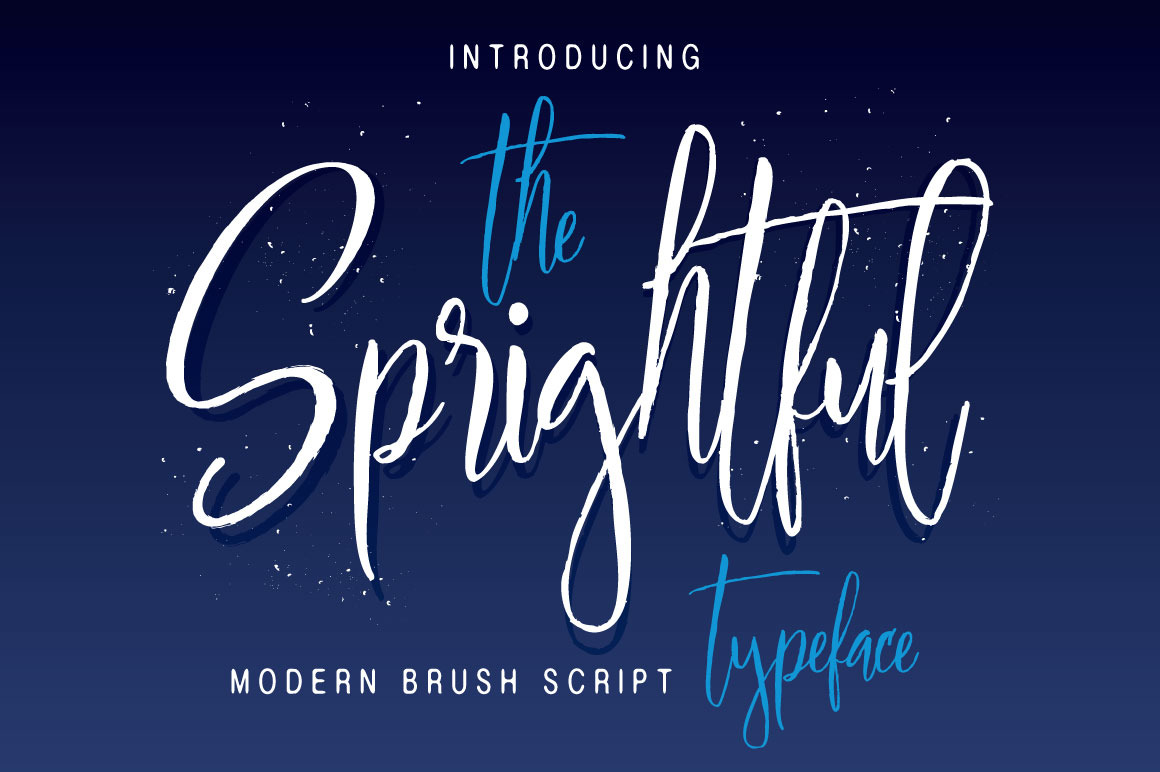
Sprightful Typeface
Sprightful Typeface is perfect for playful branding, cheerful children's products, vibrant toy packaging, fun birthday invitations, energetic entertainment venues, whimsical greeting cards, lively social media graphics, joyful event materials, spirited youth organizations, animated character designs, creative craft projects, and uplifting motivational content.
What makes Sprightful Typeface exciting is its infectious joy that radiates pure happiness and boundless energy through bouncy letterforms that seem to skip and dance with childlike wonder and enthusiasm. This delightful typeface embodies the essence of pure optimism and playful spirit, combining energetic movement with friendly approachability that instantly lifts moods and creates emotional connection with audiences seeking fun, positivity, and celebration. The font's spirited character and animated quality create immediate smiles while maintaining the readability essential for commercial applications. Its exuberant personality makes it perfect for brands that want to communicate joy, creativity, and the transformative power of laughter and playful experiences in bringing people together.
The Sprightful Typeface family includes regular and bold weights, featuring playful alternates, bouncy ligatures, and cheerful decorative elements. The character set incorporates fun symbols, spirited numerals, and expressive punctuation marks that enhance the font's joyful character and provide designers with comprehensive playful typography solutions for uplifting brand expressions.
Whether you're creating joyful brand identities, designing playful marketing materials, or developing cheerful communications, Sprightful Typeface Free Download delivers the spirited energy your fun-loving projects require. This premium typeface excels in applications where happiness and emotional connection are crucial for brand positioning and audience engagement in family entertainment and youth markets. The font's playful qualities work magnificently across packaging, signage, and digital applications, making it an invaluable asset for designers serving children's and family entertainment industries. Entertainment companies and youth-focused brands choose this font for its ability to communicate pure joy while maintaining professional quality and market appeal. The comprehensive character support includes playful symbols and fun glyphs, expanding its versatility for global family applications and multilingual cheerful communications. Professional designers appreciate its perfect balance of spirited expression and functional clarity, ensuring projects remain both emotionally uplifting and practically effective for diverse audiences. When you implement this exceptional typeface in your joyful communications, you're selecting a typography solution that celebrates happiness and playful creativity, ensuring your brand connects with families while maintaining the cheerful credibility essential for success in competitive entertainment markets and youth industries that create memorable experiences, inspire laughter, and bring joy to people of all ages through spirited design and positive energy.